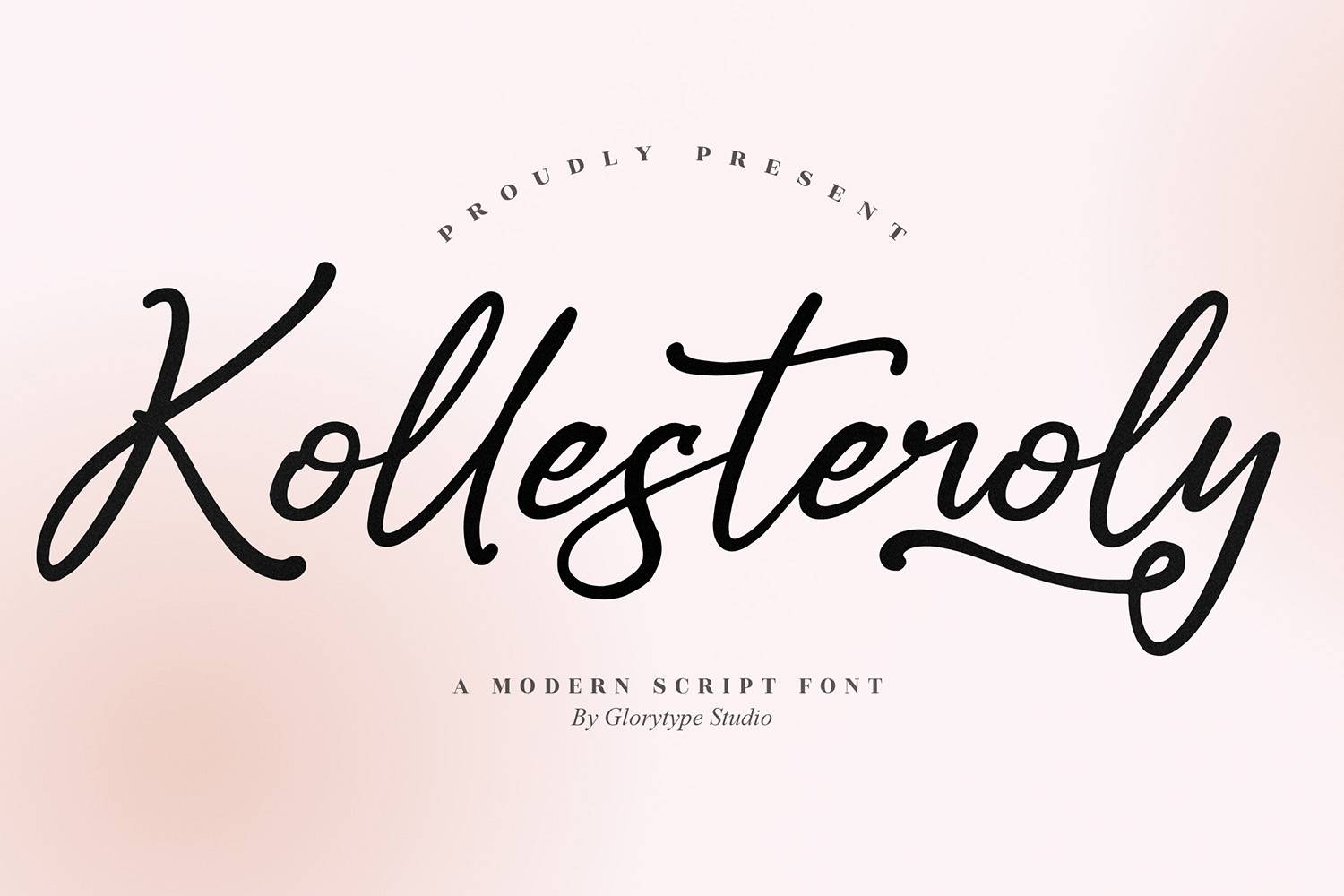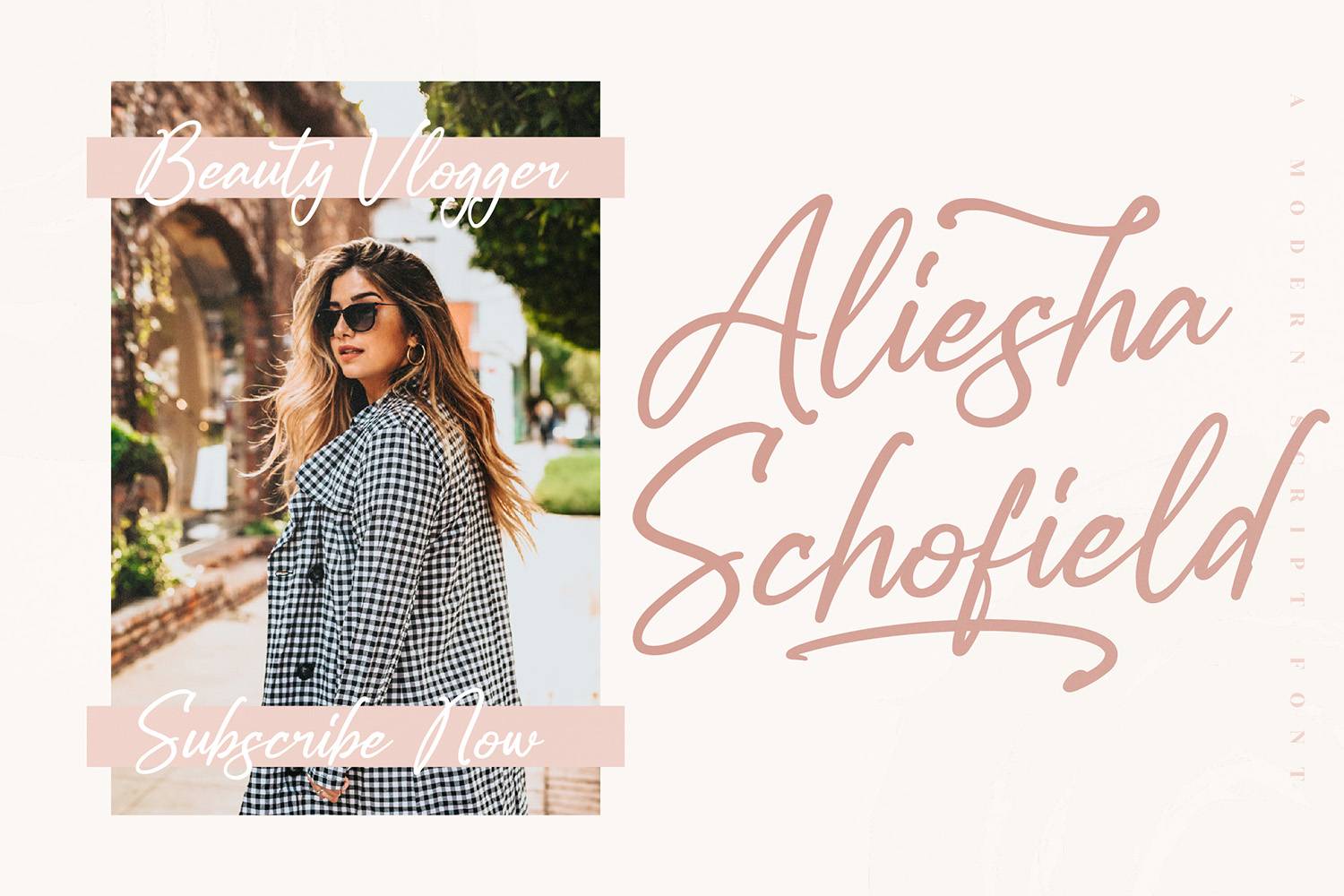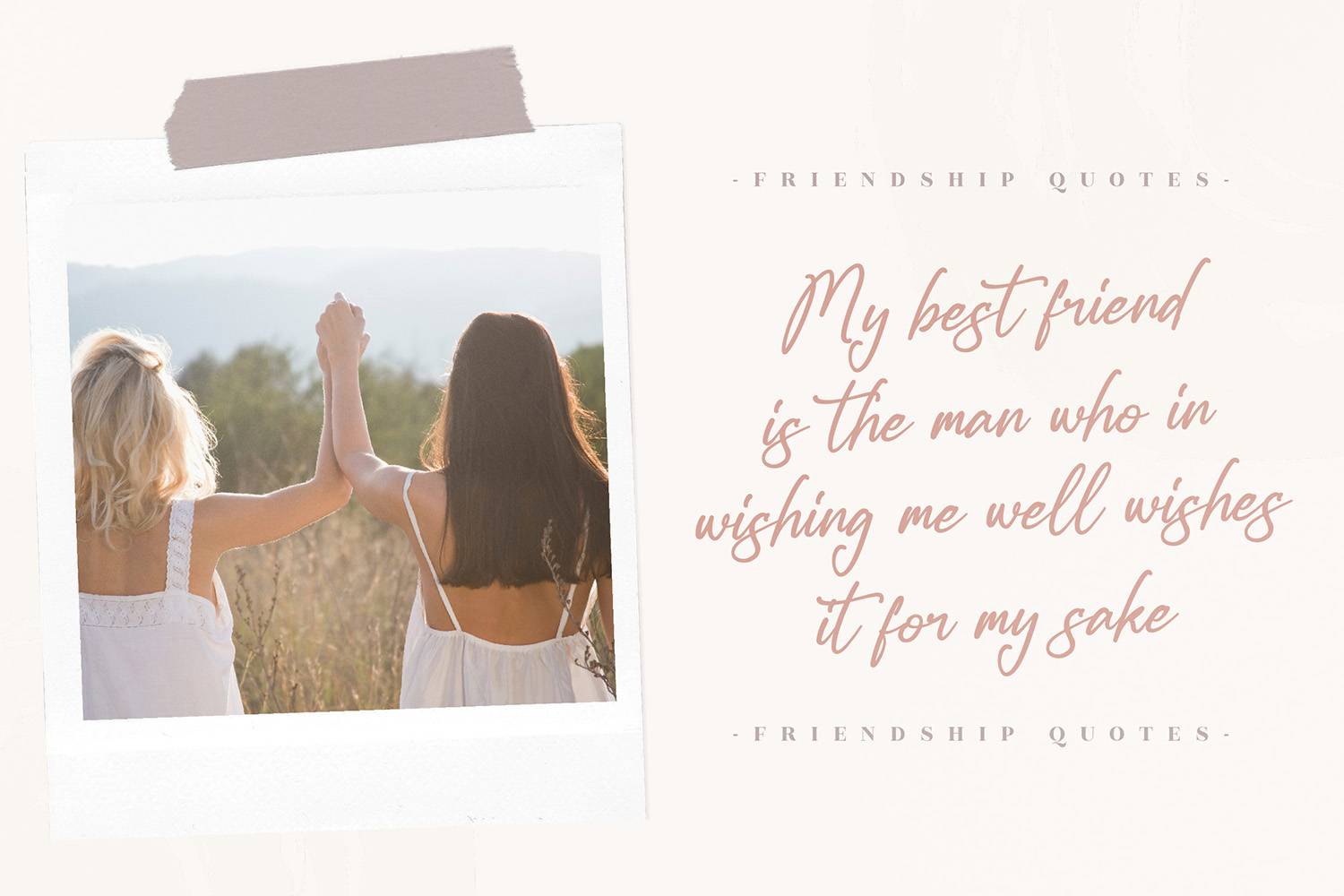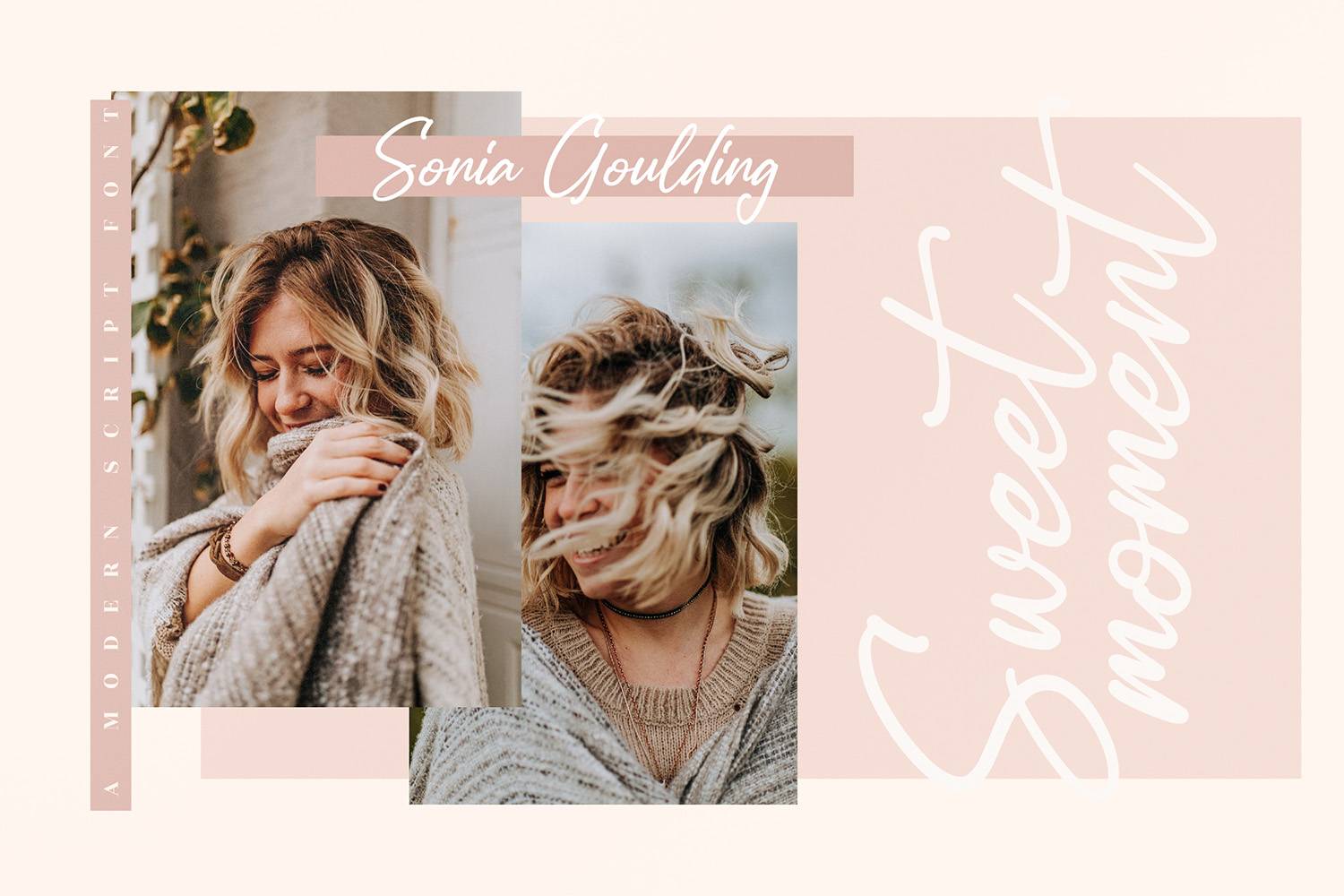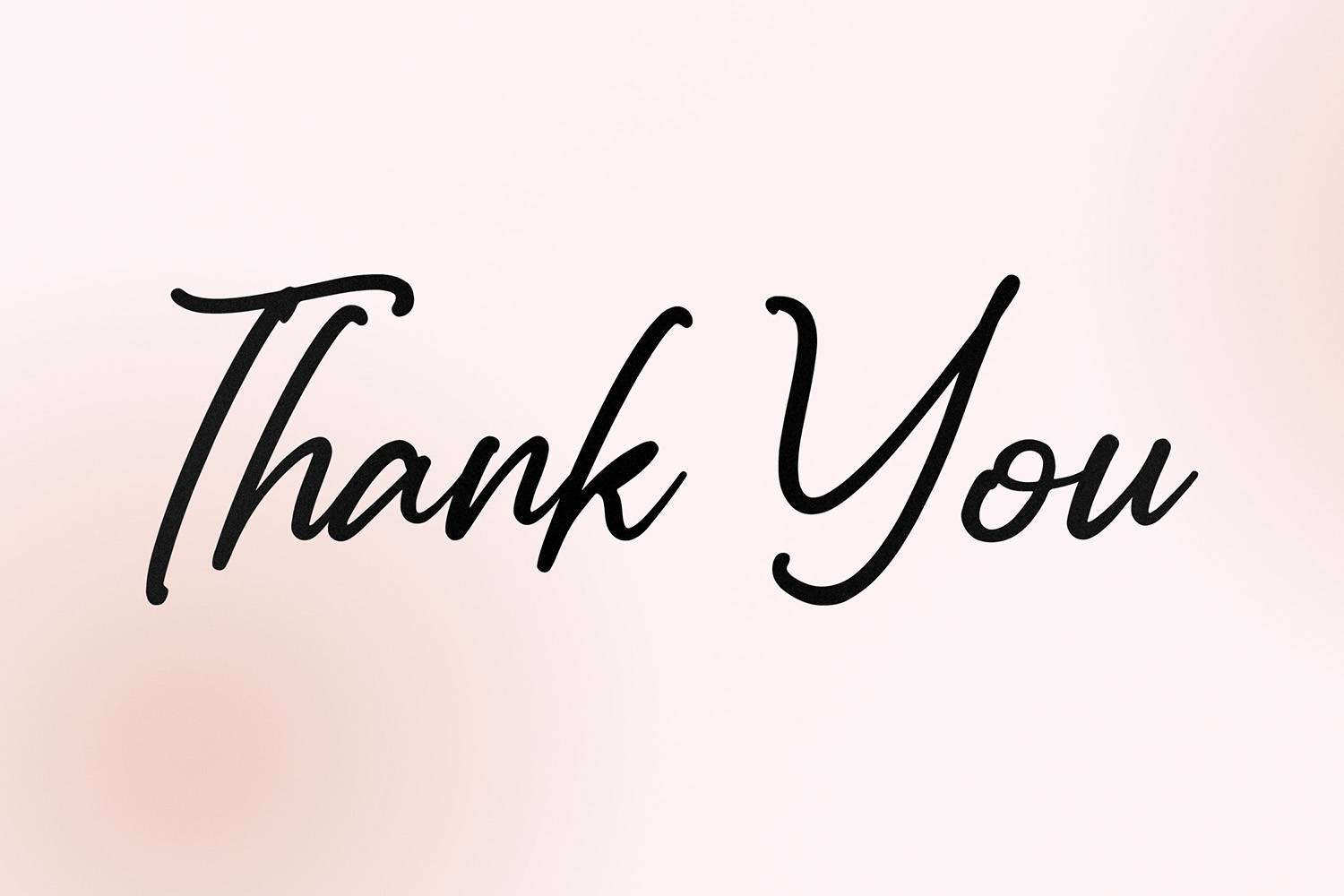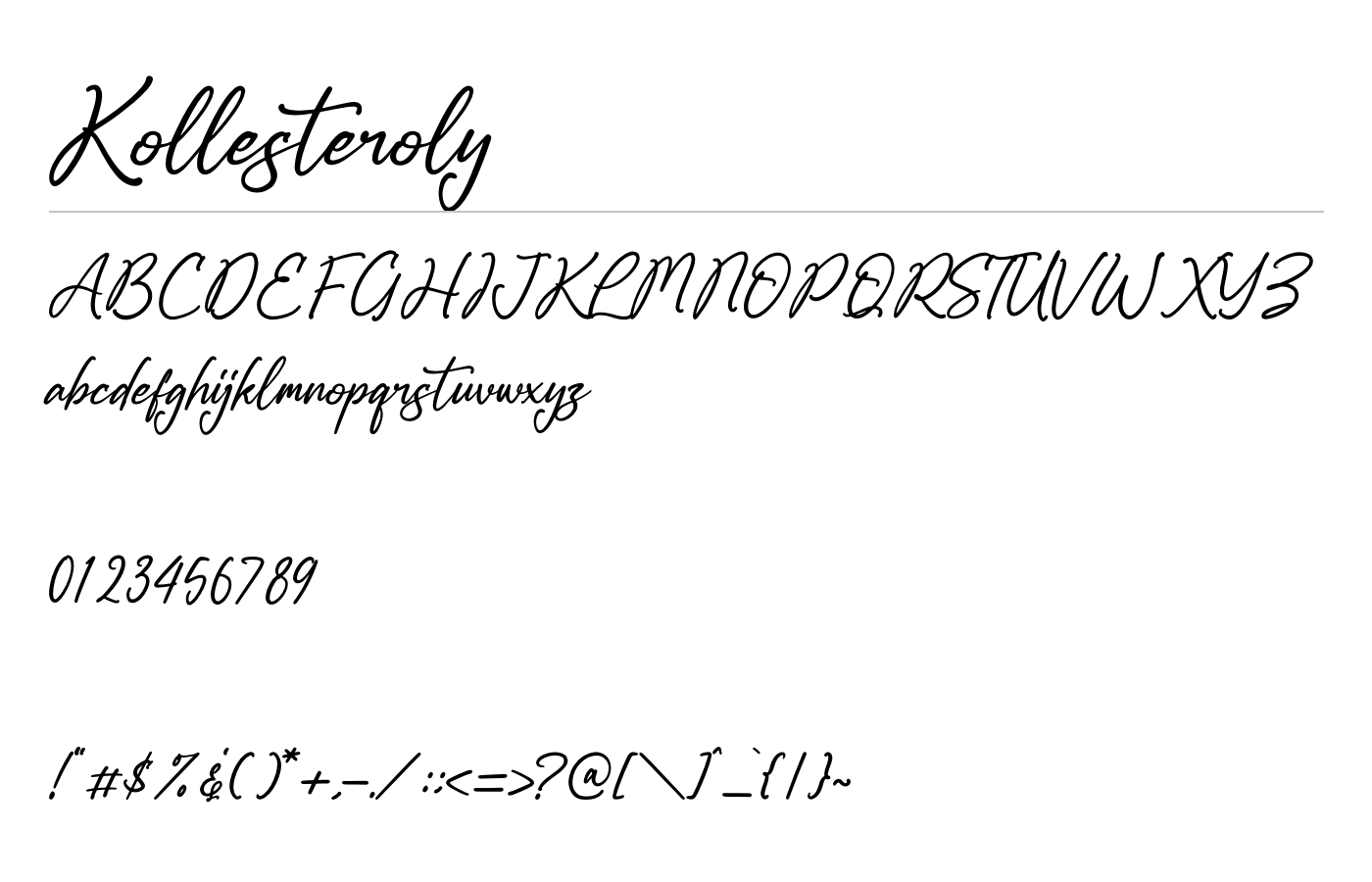
Kollesteroly is a graceful script font featuring smooth, flowing strokes with a light, elegant weight that evokes a handwritten feel. Its slightly condensed letterforms and delicate curves make it perfect for adding a personal, sophisticated touch to branding, invitations, or stylish editorial designs. This font shines in creative projects where a refined yet approachable personality is desired.
Kollesteroly Font
About Kollesteroly Font